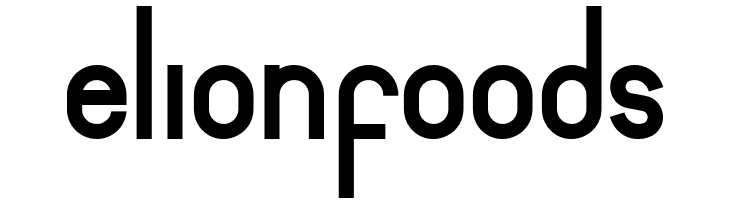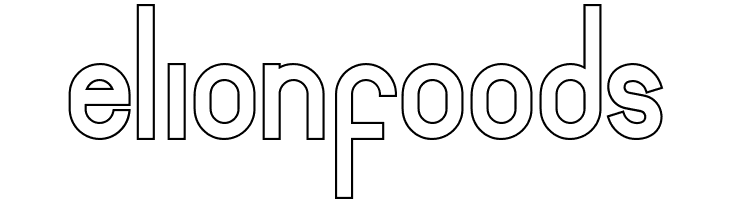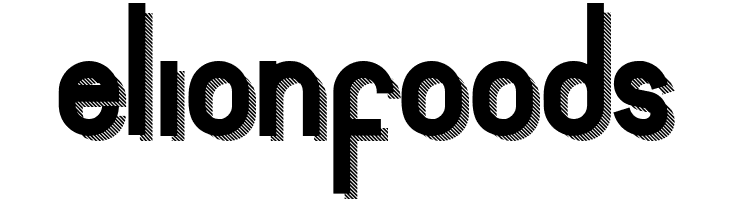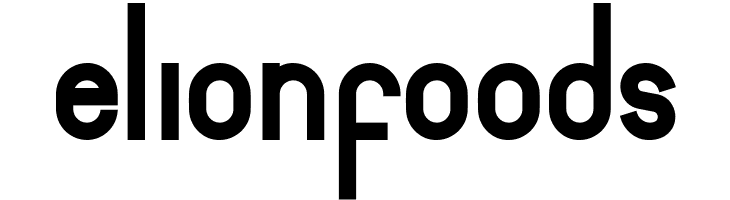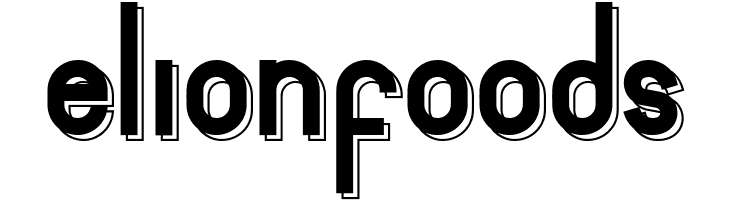
A pixelated, digital-style font with a futuristic look.
A bold, geometric font with a modern, digital aesthetic.
A classic serif font with elegant strokes and refined proportions.
A bold, comic-style font with playful star and burst embellishments.
A bold, playful display font with dynamic strokes and cartoonish style.
A bold, geometric sans-serif font with a modern and clean design.
A modern, geometric font with tall, narrow uppercase letters and rounded lowercase letters.
A bold, modern font with a unique striped pattern and geometric shapes.
A bold, geometric font with a three-dimensional outline effect.
A modern, geometric font with a hollow interior and consistent design.